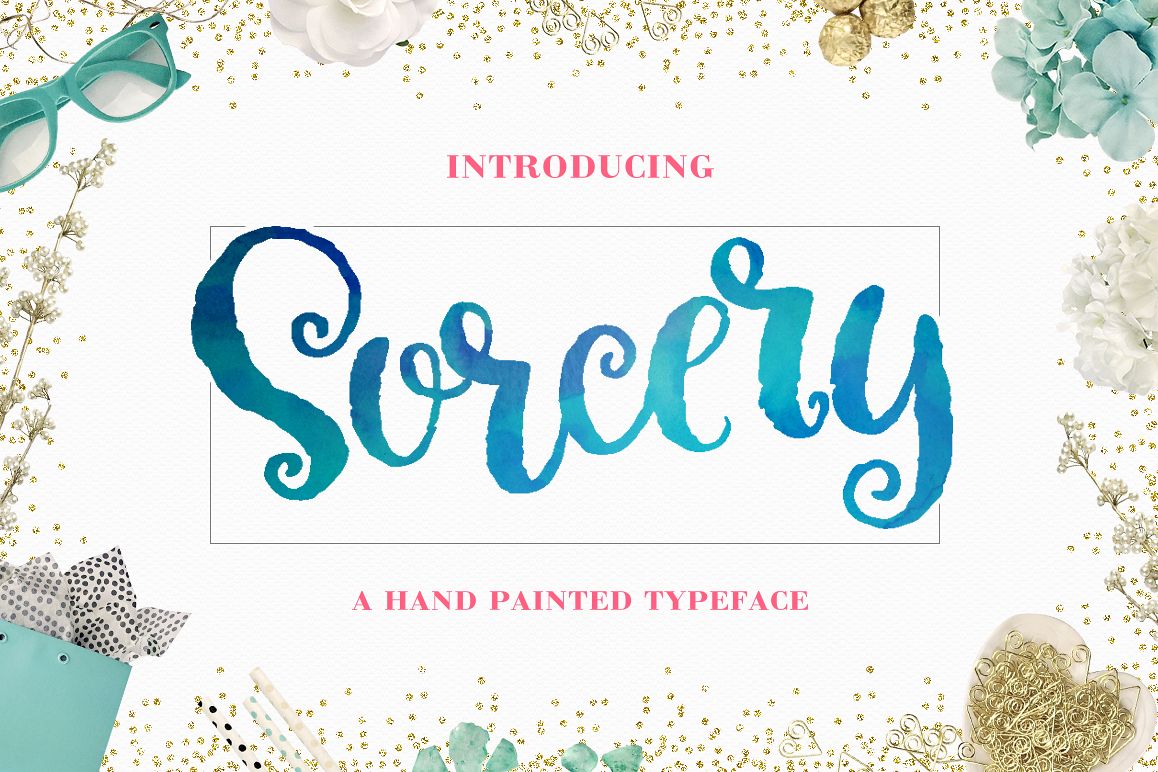
Sorcery Typeface - Brush Script
Sorcery
? Sorcery Script - Romantic font for your projects! Hand drawn brush script! ?
This handwritten font is perfect for cards, prints, logos, wedding invitations, arrange illustration and decoration. It is beautiful lettering. It has upper and lower case letters, numbers, special characters, accents and alternates.You will receive the fonts: